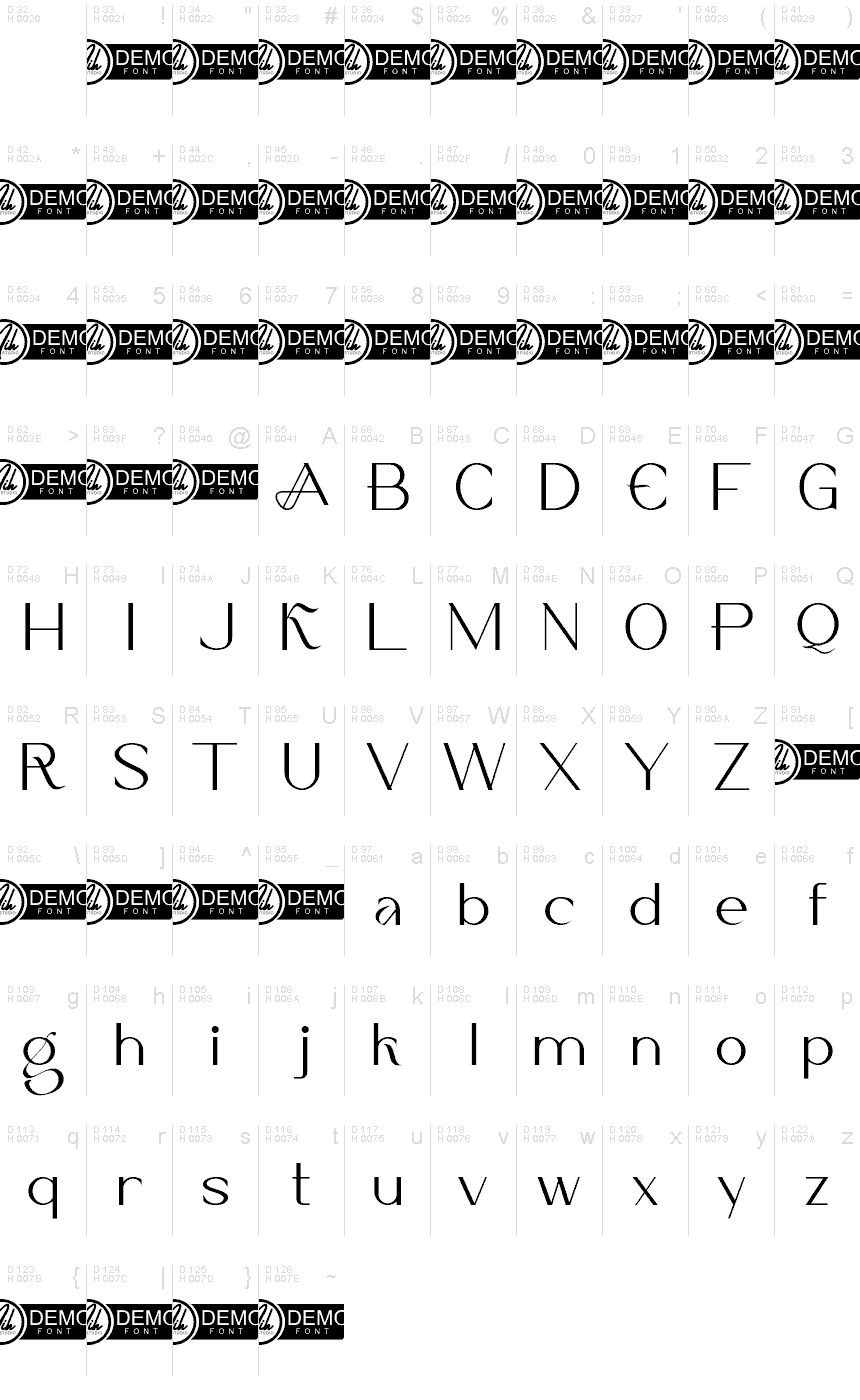
Queen Angel Demo
Queen Angel font by NihStudio is an elegant sans serif that balances sophistication with a modern touch. With decorative elements and flowing curves, it contrasts simplicity with an expressive flair. Its tall thin form projects immediate noticeable creativity.
Use it for headlines, posters, branding and advertising material. Other useful applications include websites, magazines, social media posts like Instagram or Tumblr, banners and various print items.